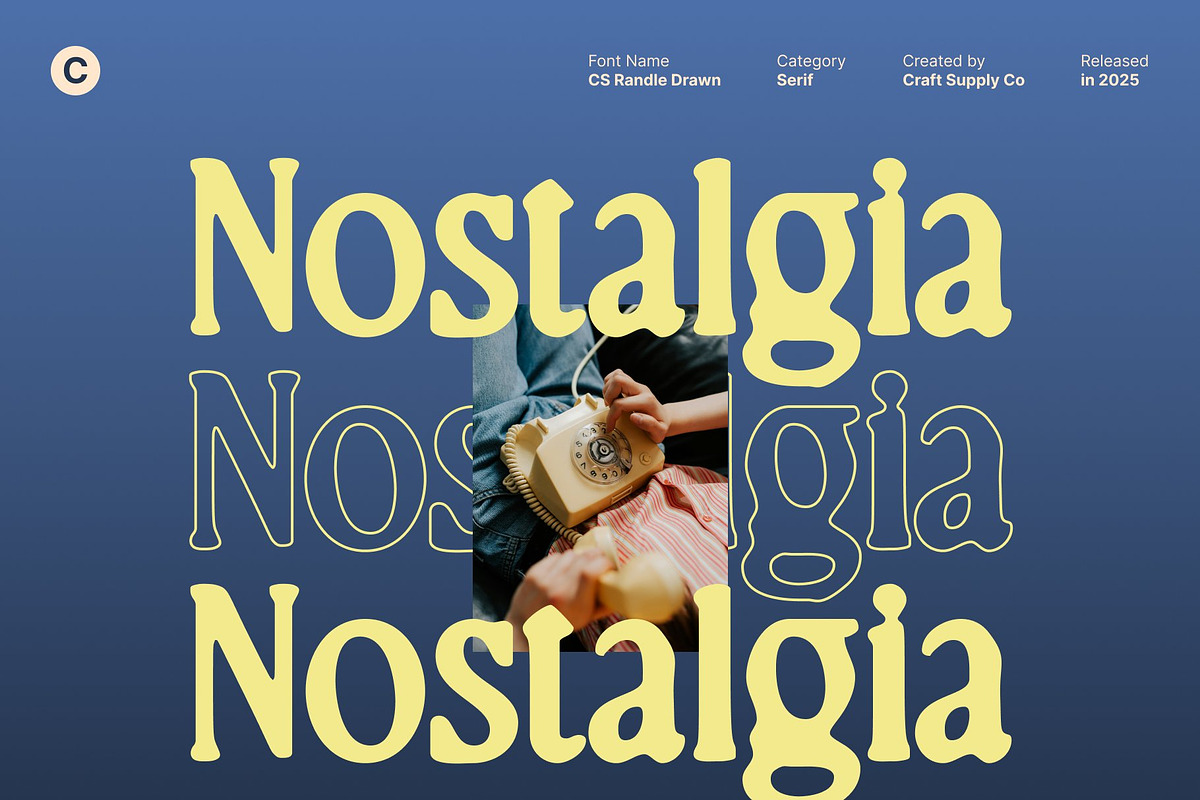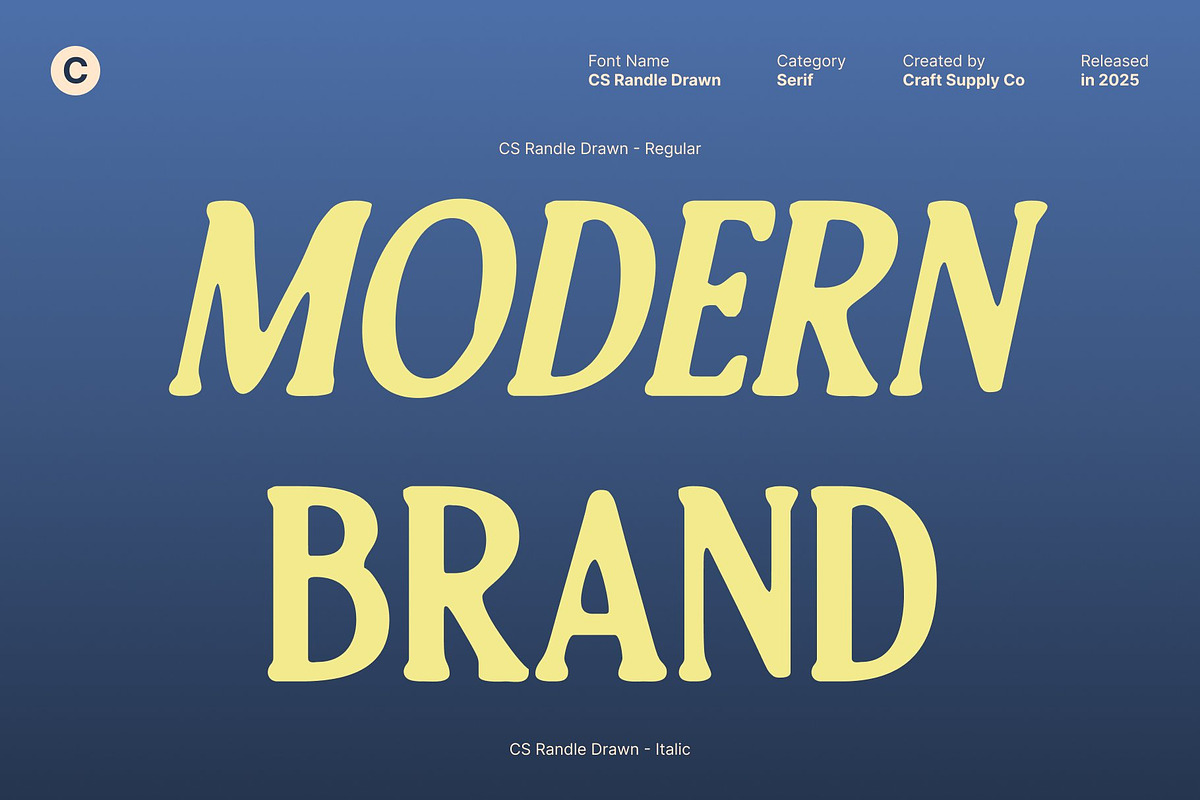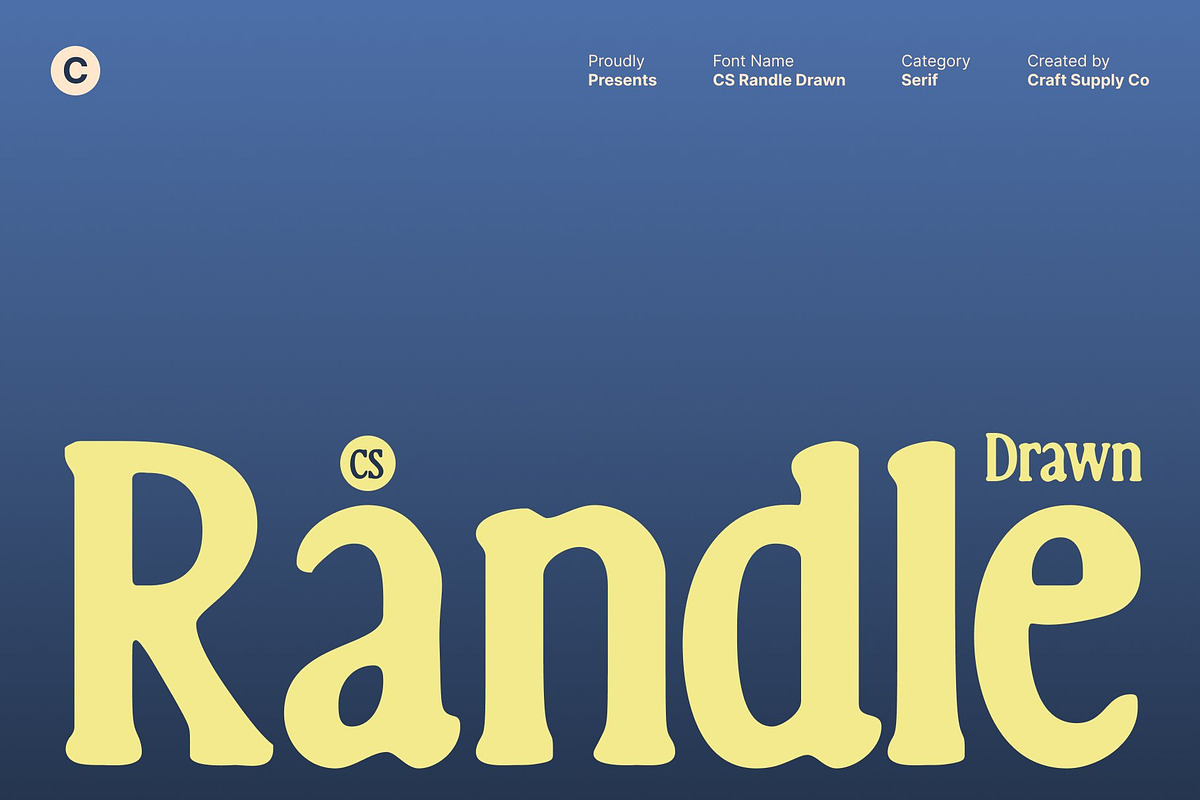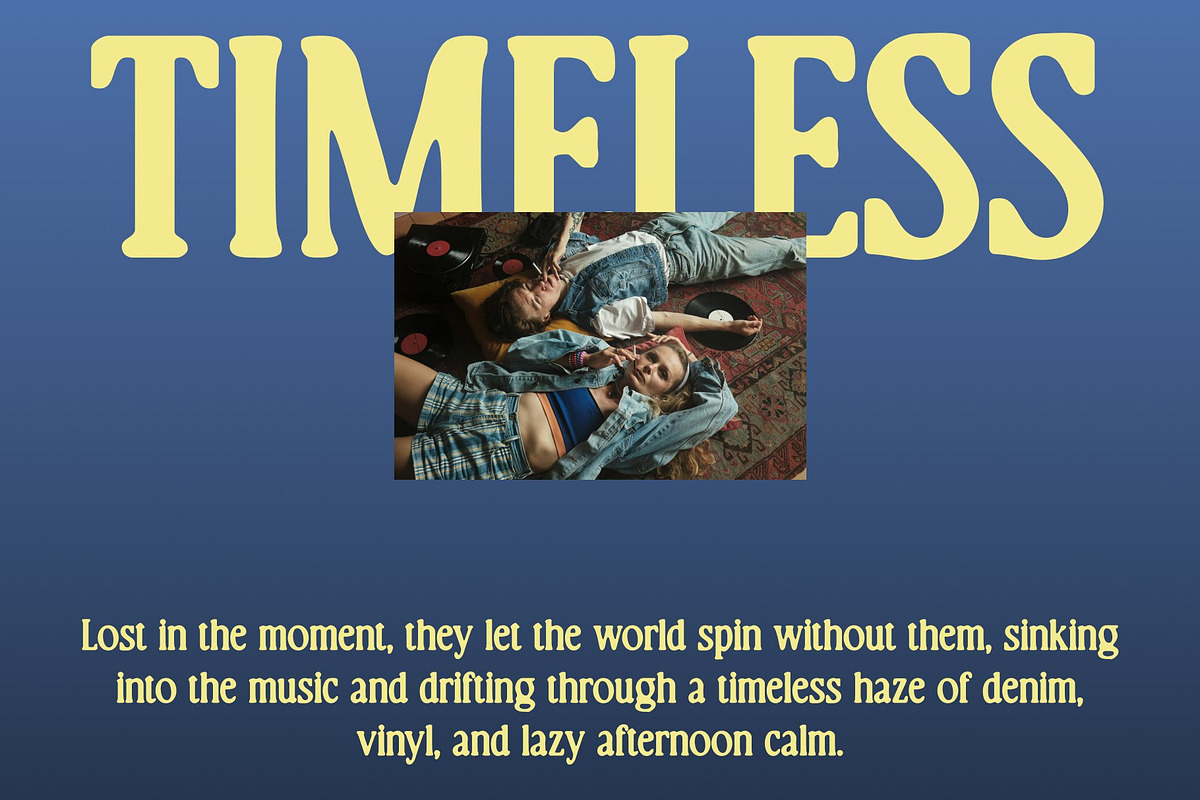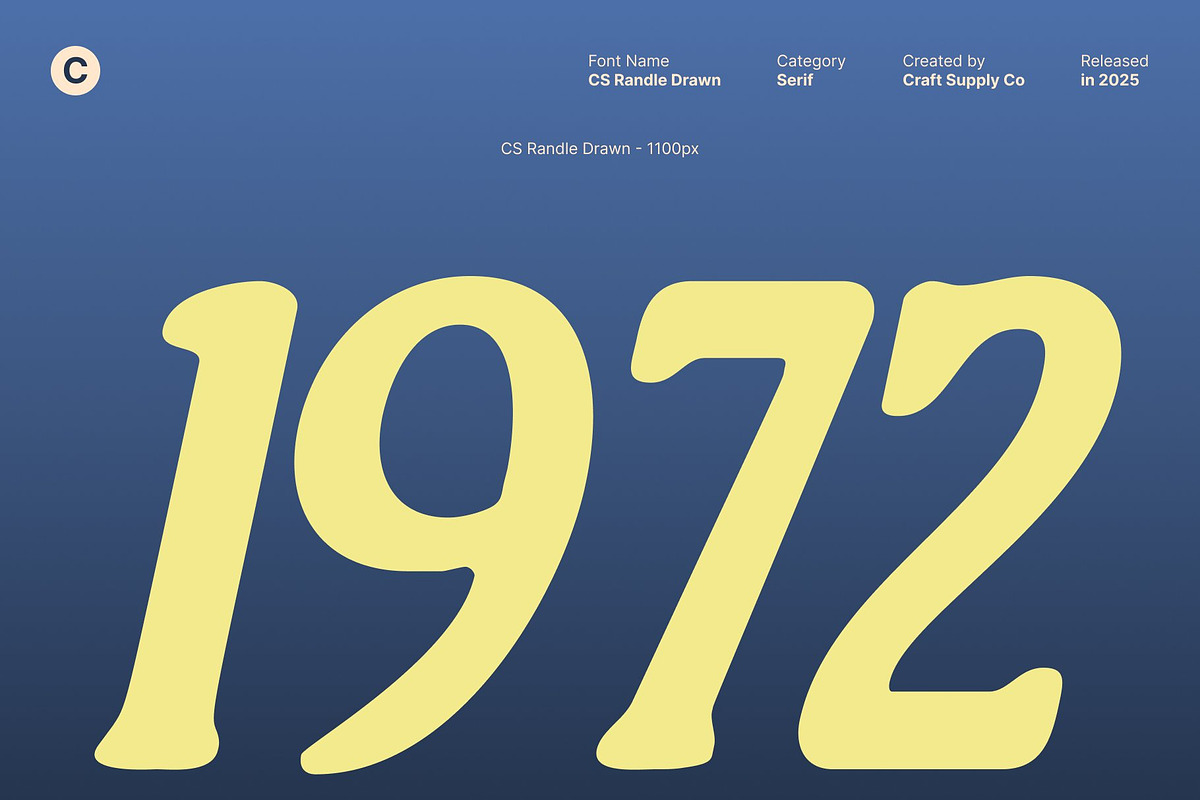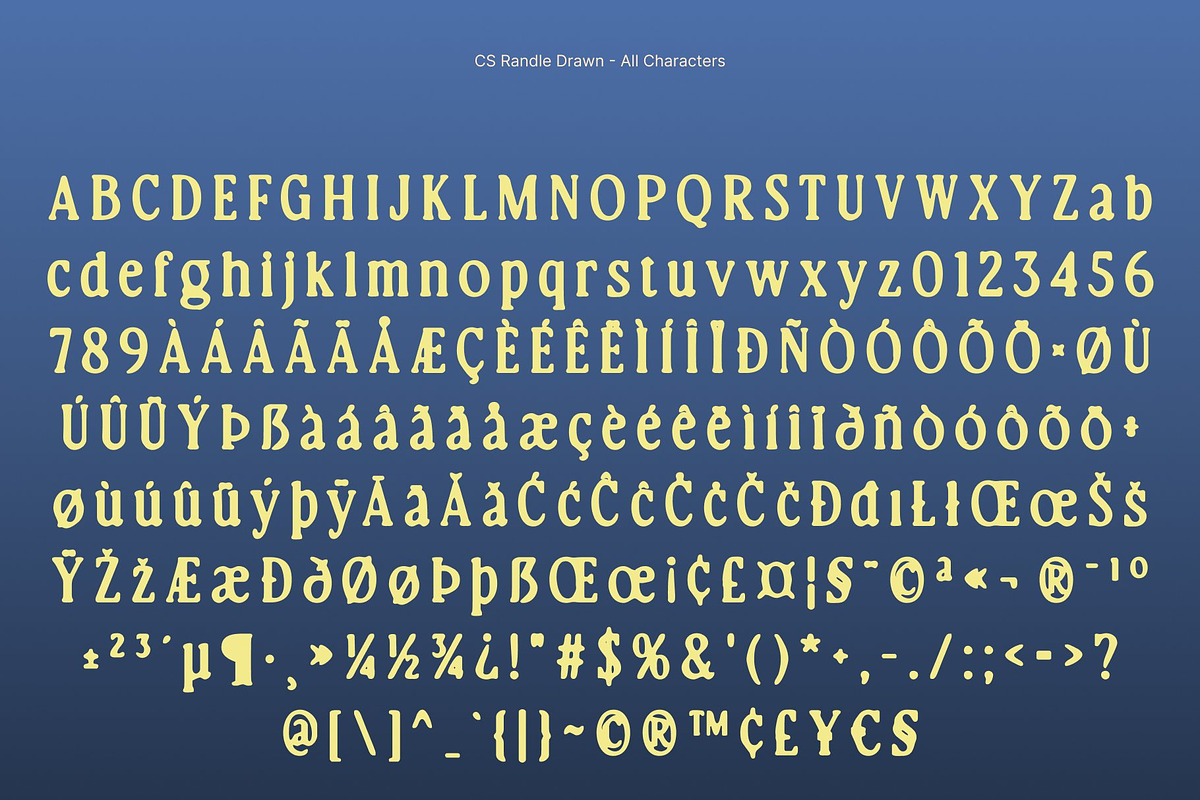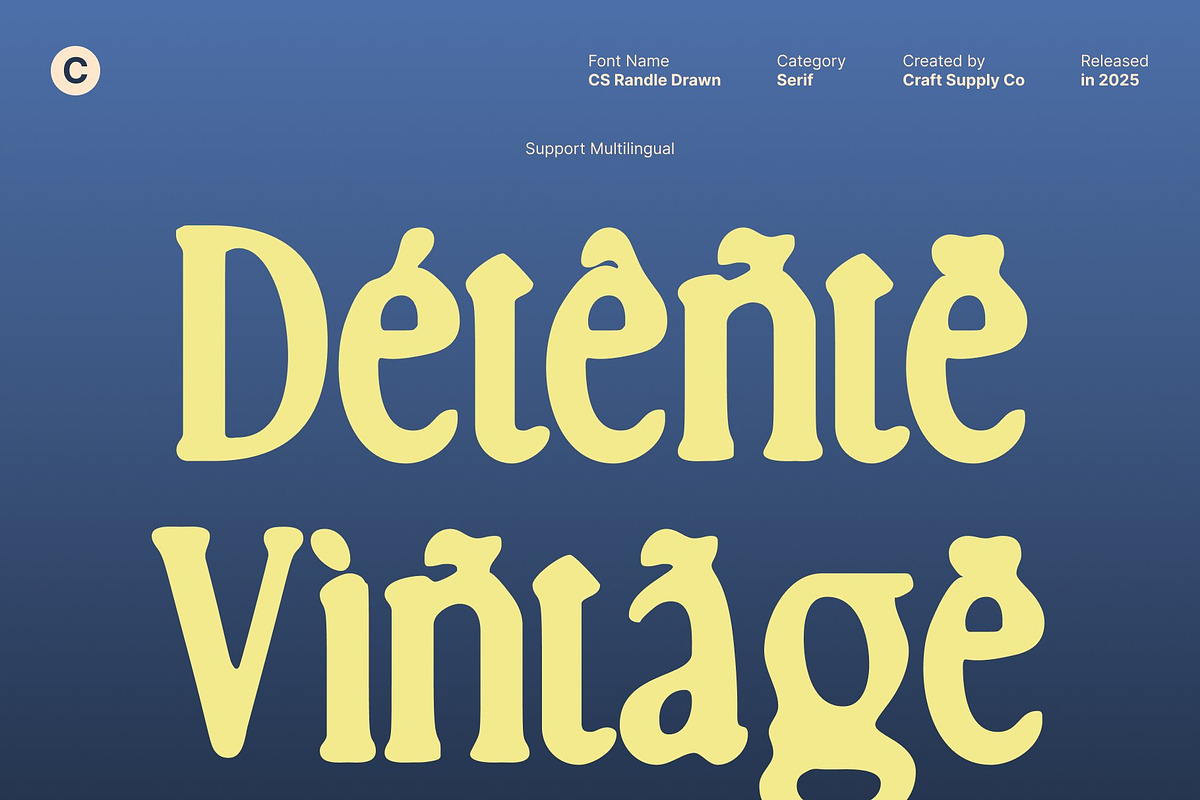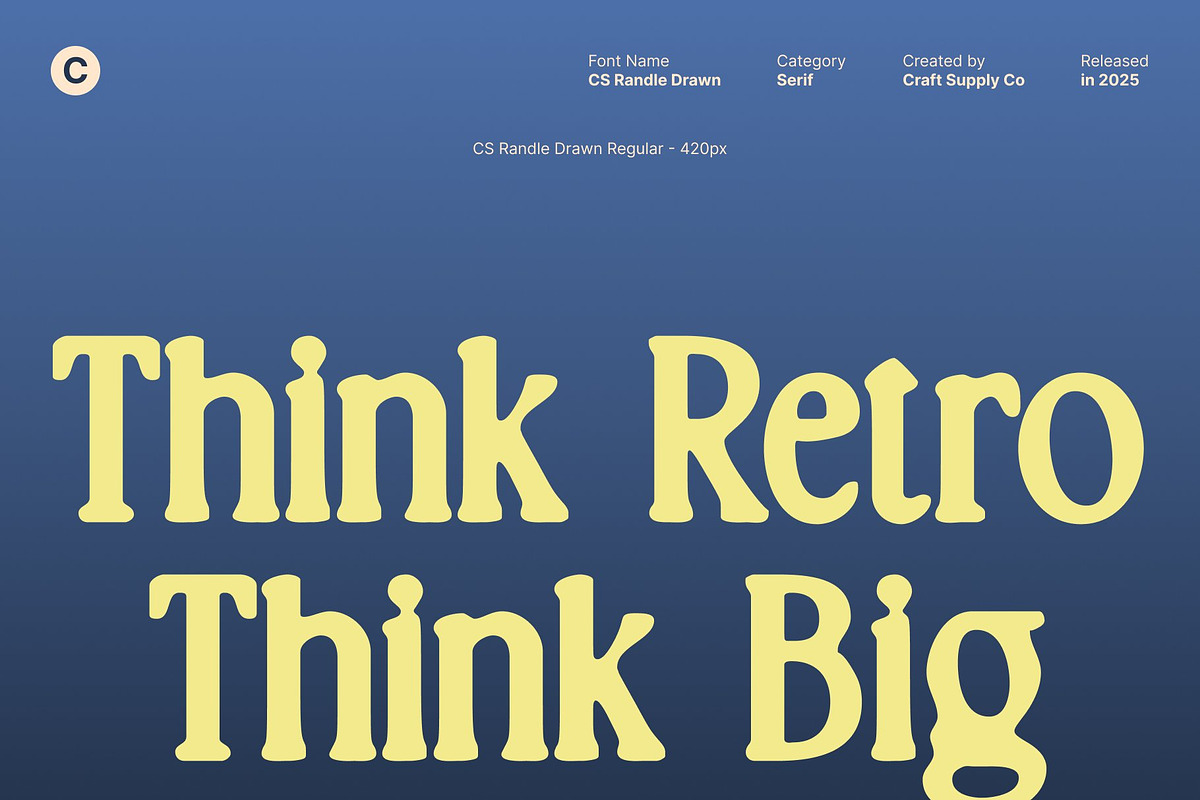
CS Randle Drawn
CS Randle Drawn – Classic Serif with Retro Handmade Charm
Bold Letterforms with Rounded Terminals This is a classic serif font designed with bold, confident letterforms and soft, rounded terminals. The combination of solidity and approachability gives the font a versatile presence, making it suitable for both prominent headlines and expressive display text. Its carefully crafted forms balance traditional serif elegance with a friendly, inviting tone.
Retro Vibe with Warm Personality Inspired by 90s typography, evokes a sense of nostalgia, giving designs a warm and familiar charm. The retro influence enhances its personality, allowing the typeface to feel timeless while remaining playful and memorable. It bridges classic elegance with a vintage flair, appealing to designs that want to communicate authenticity and style.
Drawn Texture for Artistic Expression The subtle drawn effect adds handcrafted texture and natural imperfections, enriching the font with a unique, artistic quality. This handmade touch softens the structured serif forms and introduces expressive variation, making every letter feel lively and full of character. The drawn texture ensures that the font stands out with personality and visual depth.
Ideal for Posters, Logos, and Creative Branding This is perfect for posters, logo design, branding projects, editorial layouts, and packaging that seek a blend of classic sophistication and retro charm. Its bold presence, nostalgic feel, and artistic texture make it a versatile and distinctive choice, giving every project a warm, expressive, and visually engaging identity.
- CS Randle Drawn Regular
- CS Randle Drawn Italic